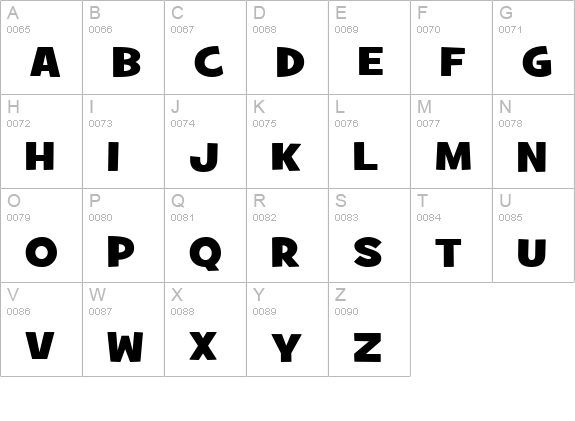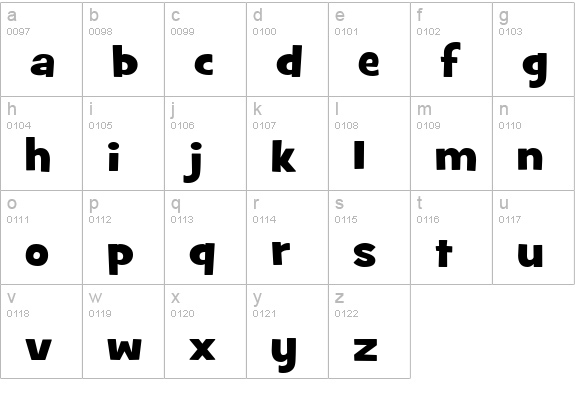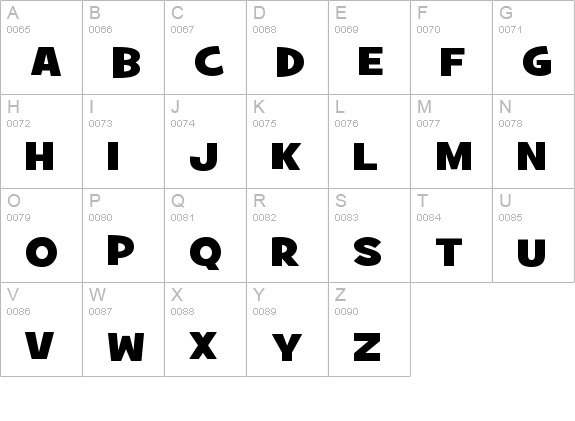
GrilledCheese BTN Wide Bold is a strong, high-contrast, extended-width variant in the GrilledCheese typeface family \xE2\x80\x94 well suited to headlines, attention-grabbing titles, and strong calls-to-action.
GrilledCheese BTN Wide Bold font is a bold and eye-catching typeface that adds a touch of personality to any design project. With its wide and sturdy letterforms, this font exudes confidence and strength. Perfect for headlines, titles, and other display purposes, GrilledCheese BTN Wide Bold commands attention and makes a statement. The best part? GrilledCheese BTN Wide Bold font is available for free download at FontsMarket.com. So you can easily add this versatile and impactful font to your collection without breaking the bank. Don't miss out on the opportunity to enhance your designs with the bold and distinctive charm of GrilledCheese BTN Wide Bold font. Download it today and take your projects to the next level!